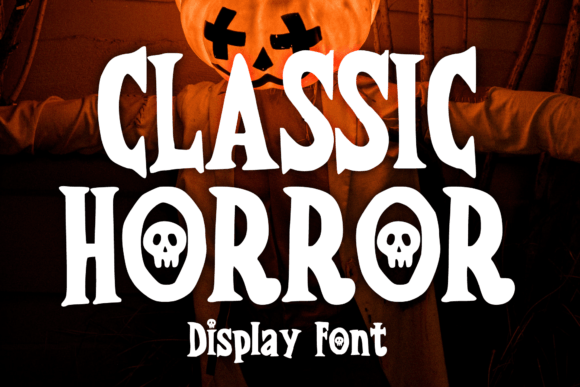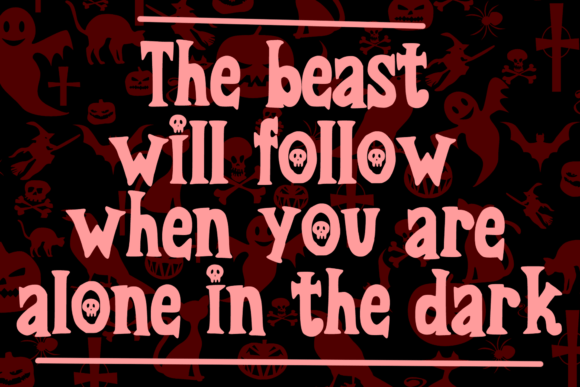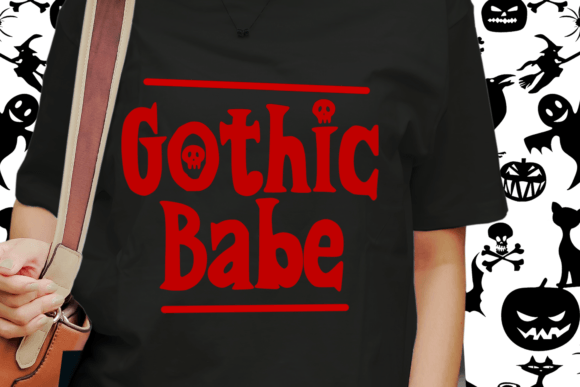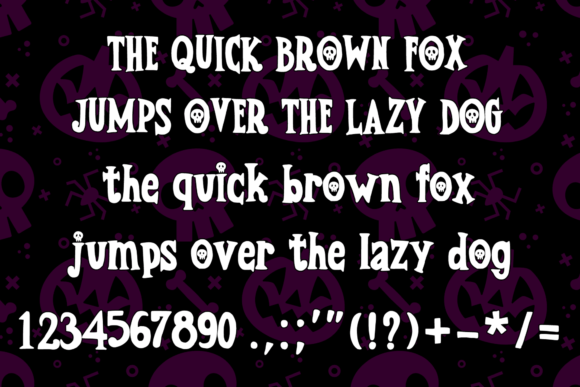
Classic Horror Font
About the Classic Horror Font
Discover the charm of Classic Horror Font. This font is a perfect blend of modern aesthetics and classic appeal. Classic Horror is a fun and comical horror display font inspired by vintage spooky cartoon. Not only can be used for Halloween theme needs, you can use it too for other things for daily needs. Use it on t-shirts and clothing, book designs, greeting cards, stickers, posters, banners, or anything that needs a fun touch. Try it to create fabulous designs and feel the fun and cool vibes with it!
Classic Horror excels as a display font for headlines, posters, and short-form text in projects needing a playful yet spooky aesthetic. Its retro cartoon inspiration makes it ideal for branding related to Halloween, vintage-themed entertainment, or whimsical horror-adjacent products. Avoid using it for body text or lengthy paragraphs; its unique character is best suited for impactful, concise messaging.
Pairing it with a clean sans-serif like Open Sans for body copy provides excellent contrast, balancing the font’s playful energy with readability. Alternatively, a more traditional serif like Garamond can create a sophisticated juxtaposition, highlighting the vintage inspiration while maintaining visual harmony. For a bolder, more graphic look, consider pairing it with a geometric sans-serif like Futura.
The font’s core personality is light-hearted and spooky, blending vintage charm with a touch of modern playfulness. It’s best suited for brands and projects that embrace a fun, slightly mischievous tone, rather than those requiring sophistication or seriousness.